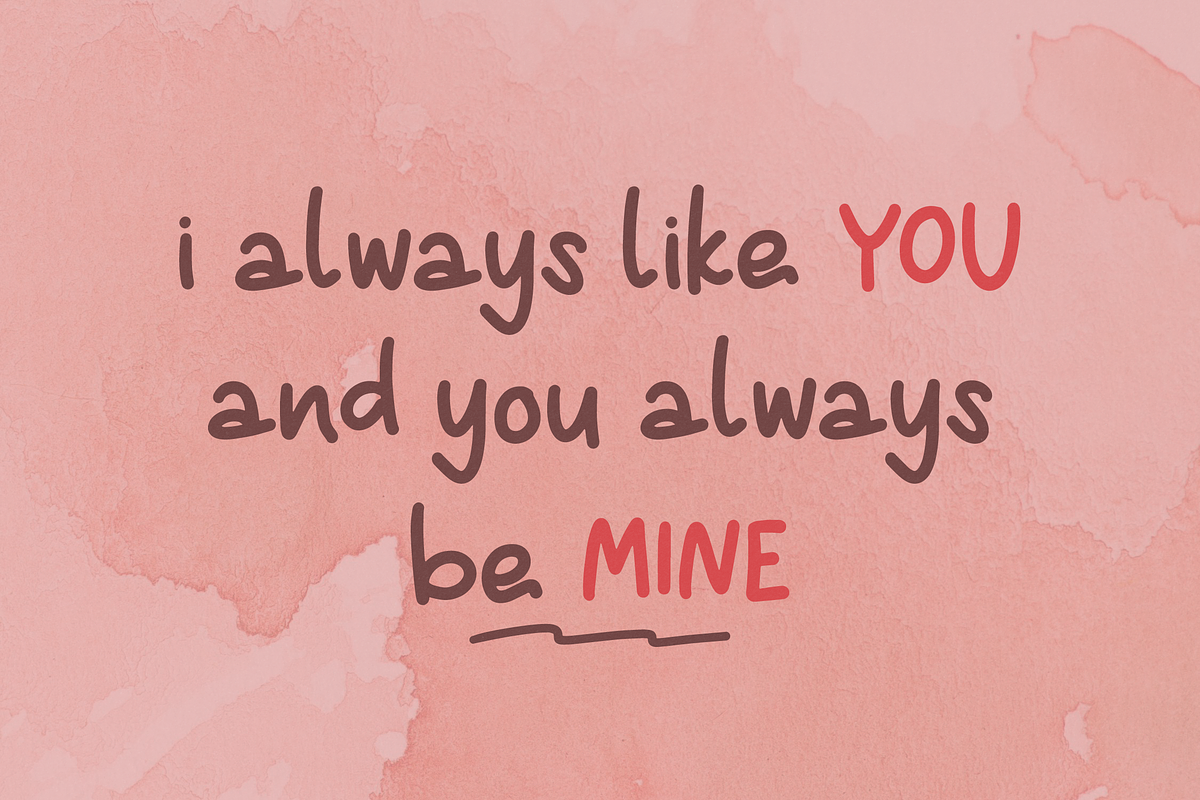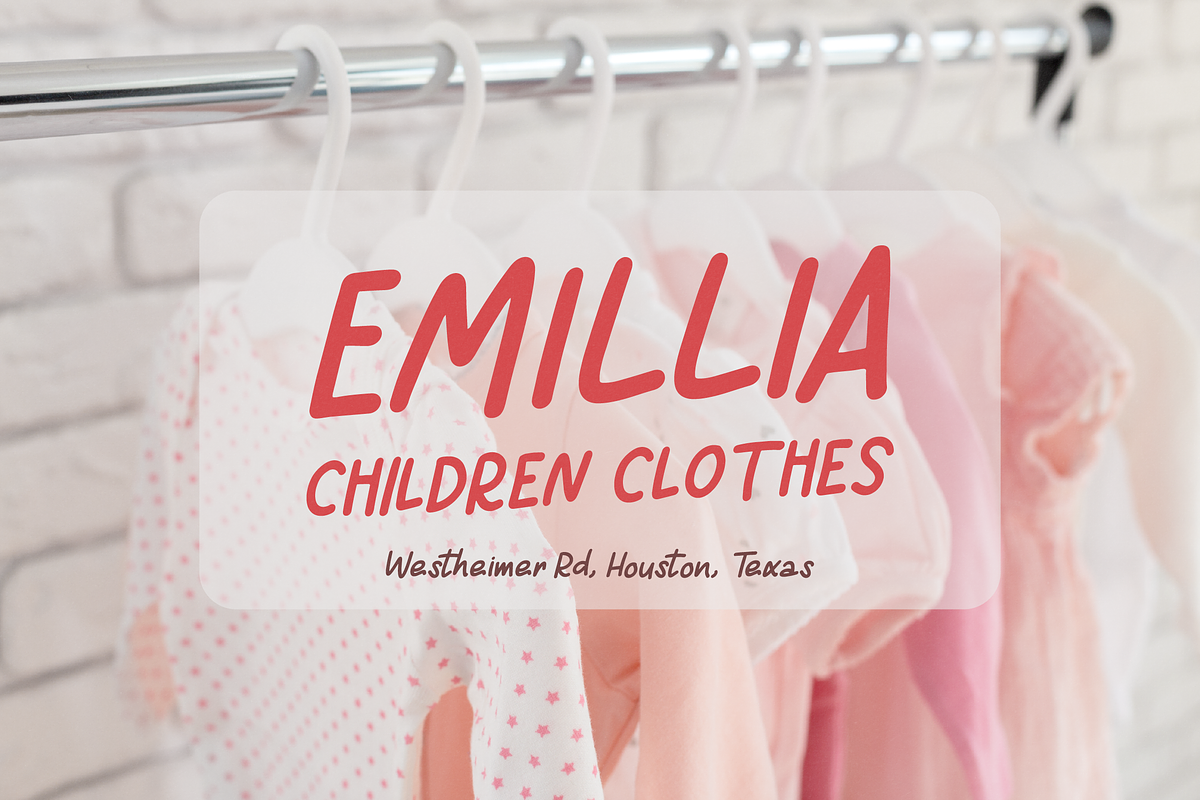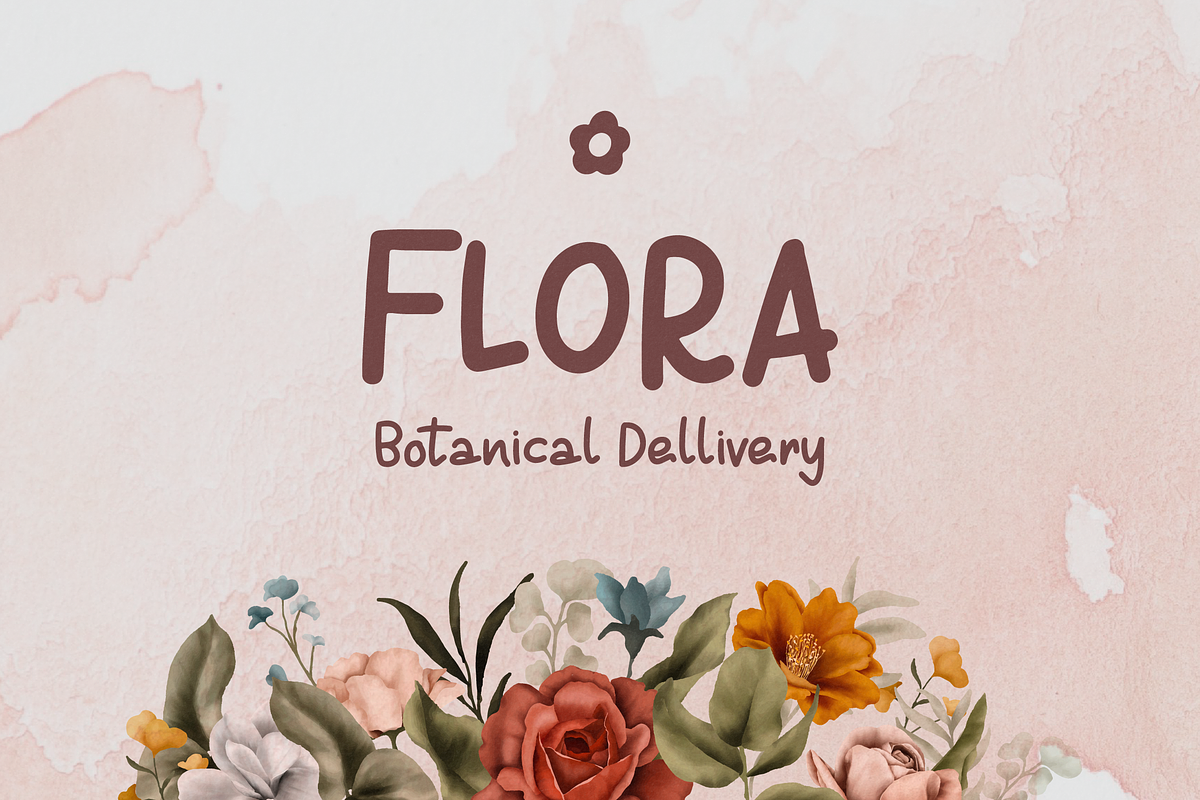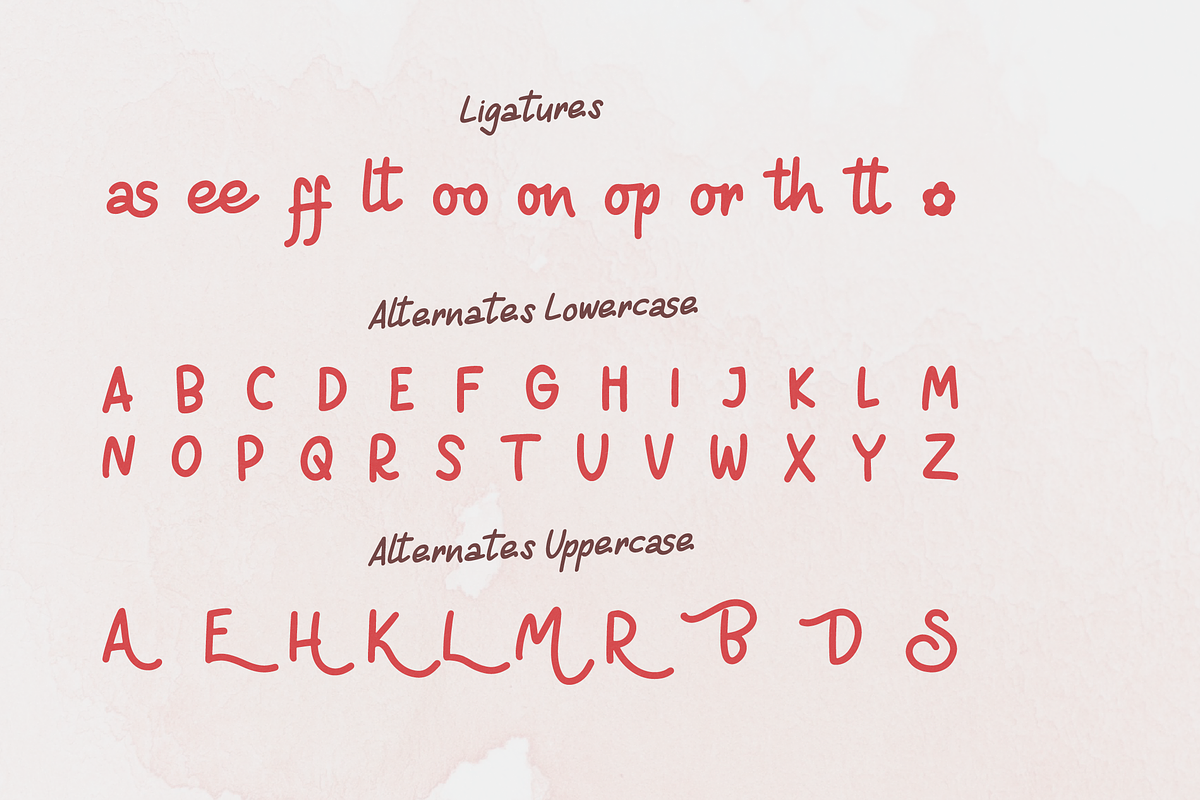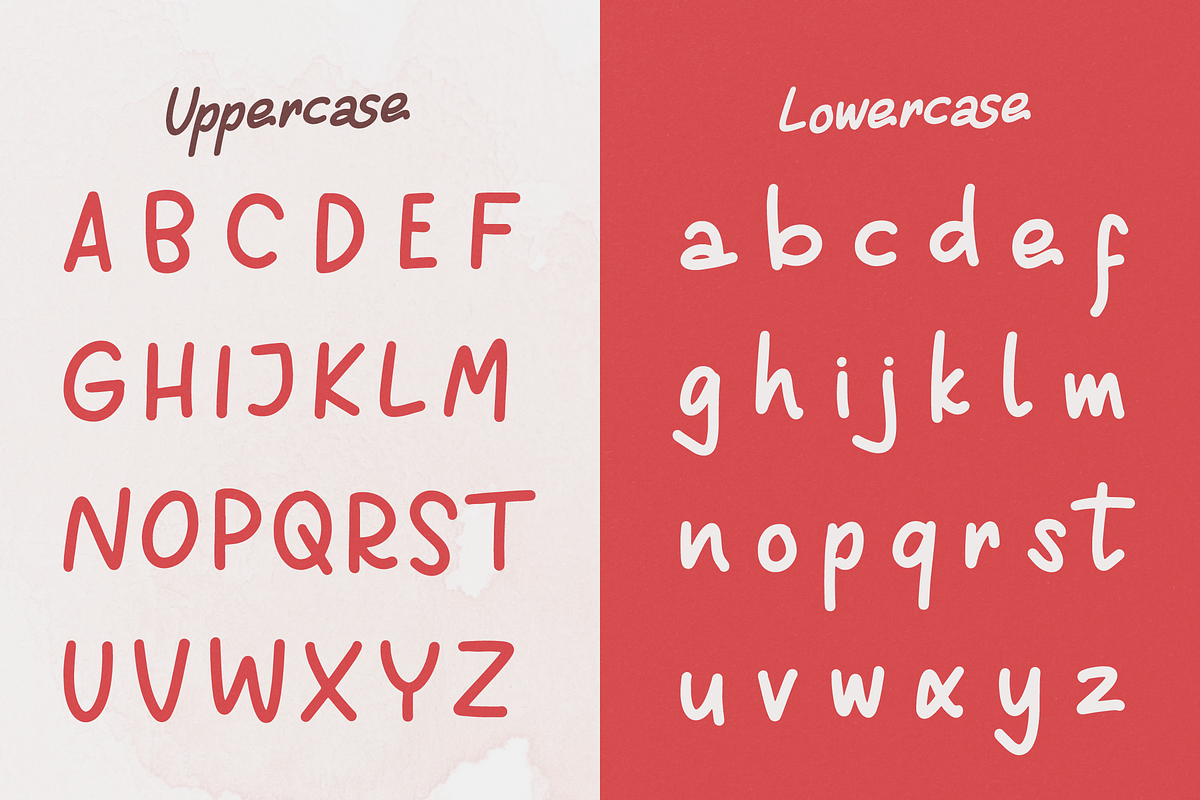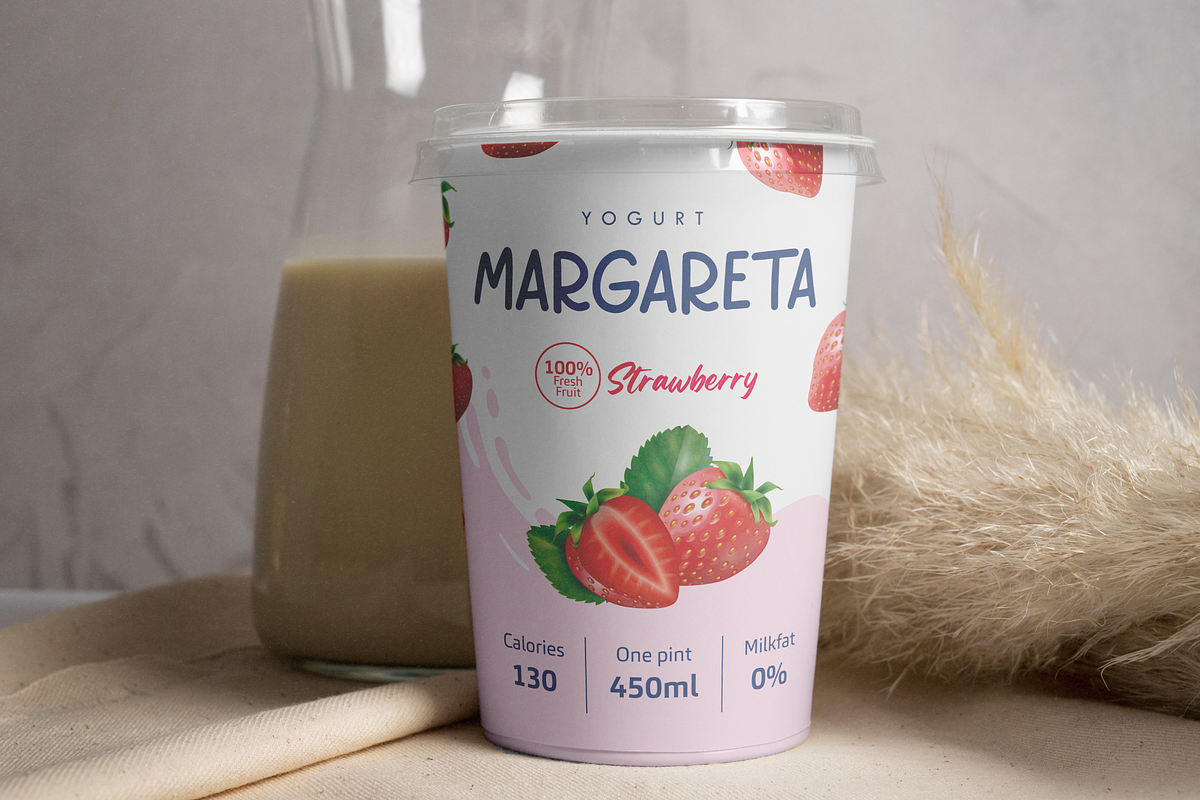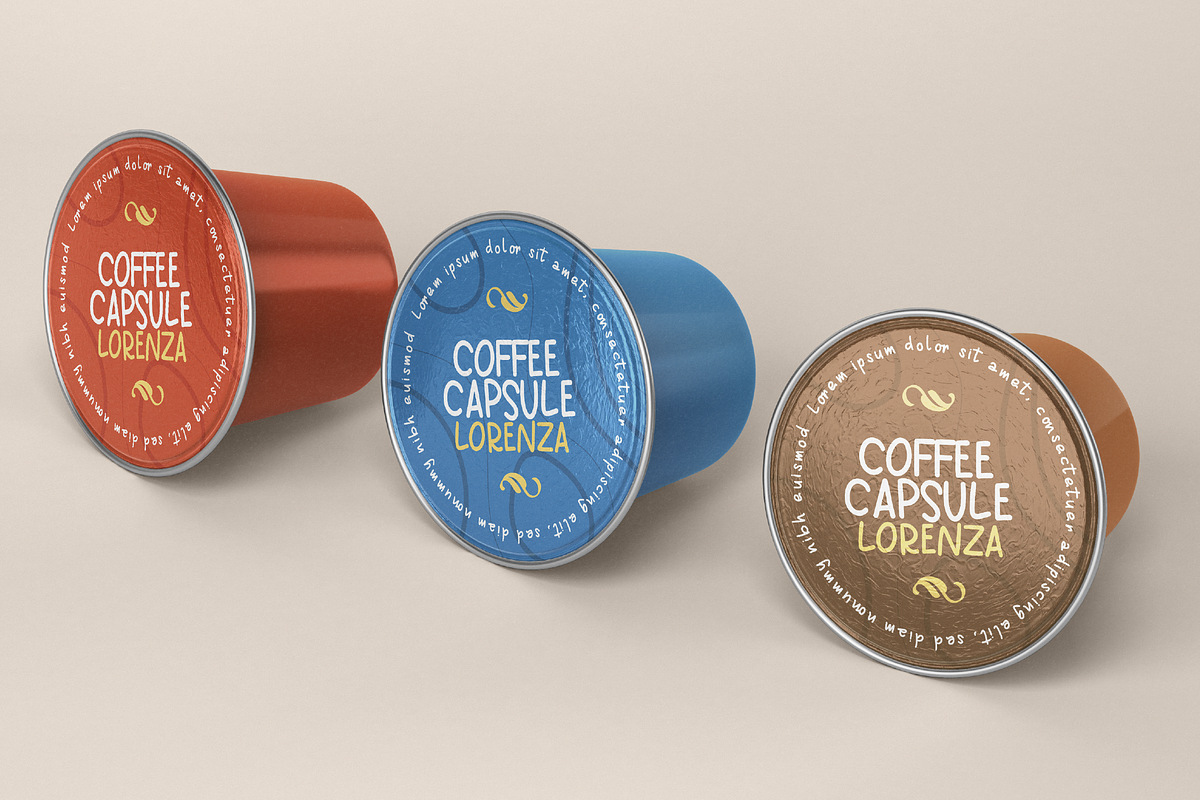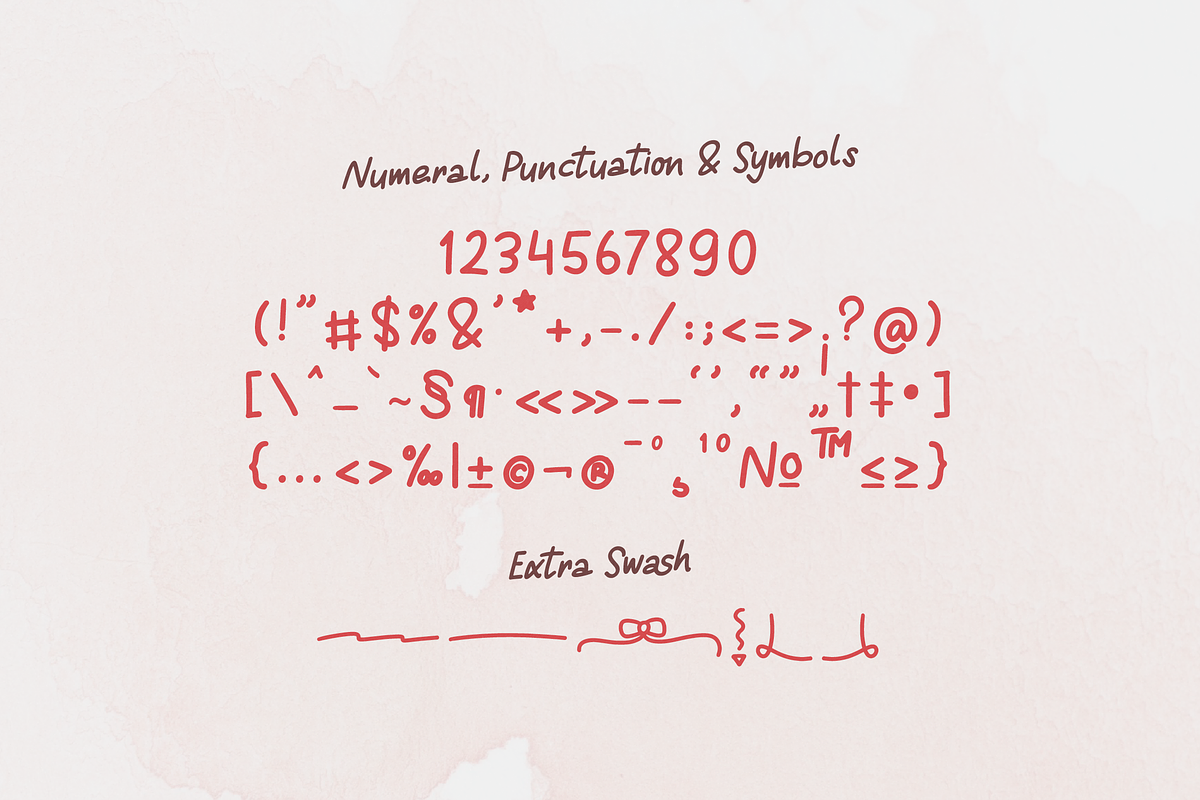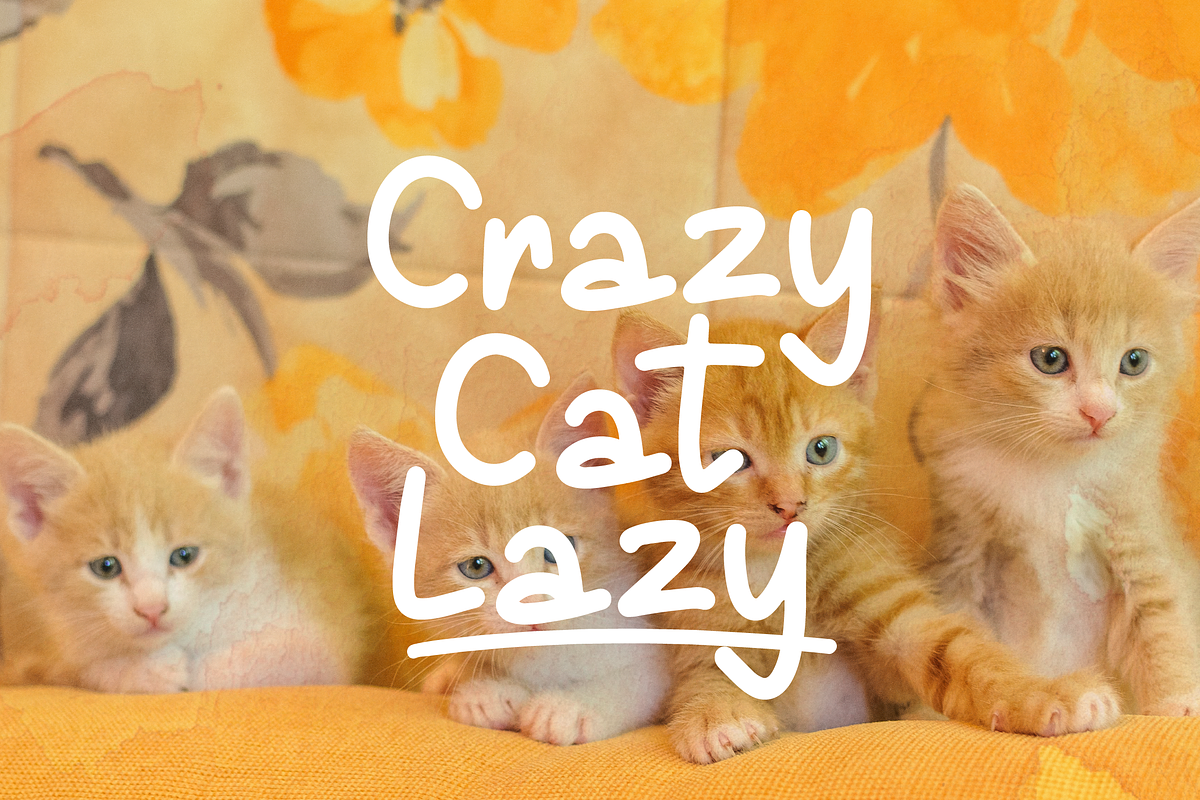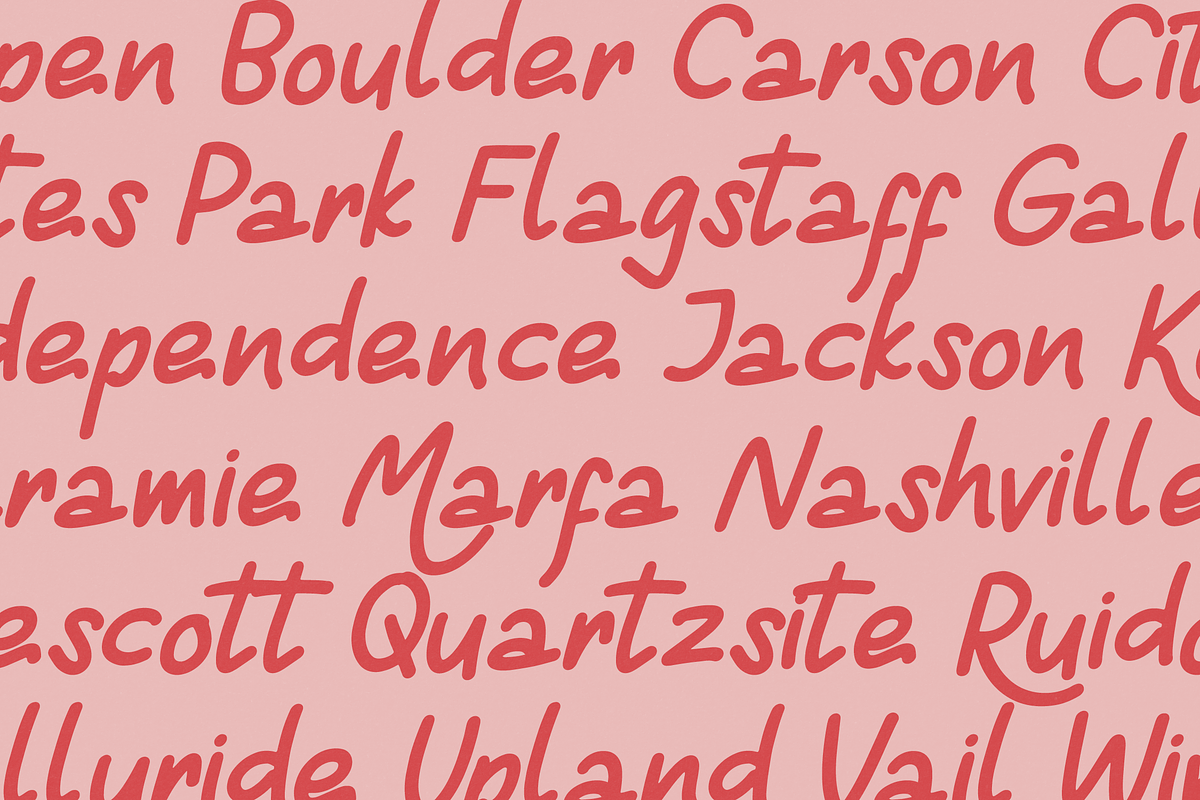
Beginning Joy | Monoline Hand Drawn
Beginning Joy | Monoline Hand Drawn, from Denustudios, suitable for any projects such as: logos, branding projects, homeware designs, product packaging, mugs, quotes, posters, shopping bags, t-shirts, book covers, name card, invitation cards, greeting cards, label, photography, watermark, special events, and all your other lovely projects that need a Monoline Hand Drawn taste.